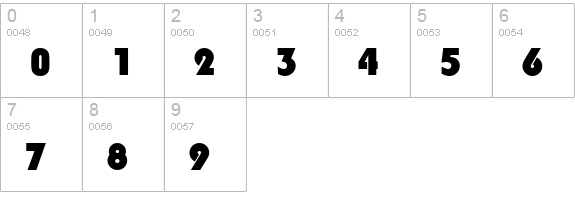
Puente-Bold is a strong, high-contrast variant in the Puente typeface family \xE2\x80\x94 well suited to headlines, attention-grabbing titles, and strong calls-to-action.
Puente-Bold is a striking and modern font that exudes sophistication and elegance. With its bold and eye-catching design, this font is perfect for creating impactful headlines, titles, and branding materials. The strong and clean lines of Puente-Bold make it versatile for a wide range of design projects, from posters to logos to packaging. What makes Puente-Bold even more appealing is that it is available for free download at FontsMarket.com. This means you can easily access this stylish font and incorporate it into your designs without any cost. Whether you are a designer looking to add a touch of flair to your projects or a business in need of a distinctive font for your branding, Puente-Bold is the perfect choice. Download it today and elevate your designs with this remarkable typeface.